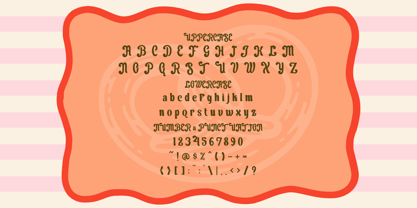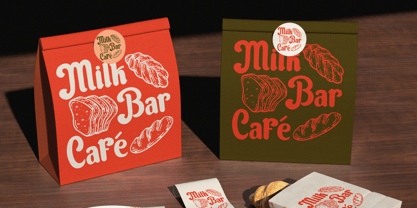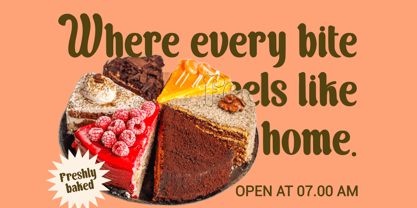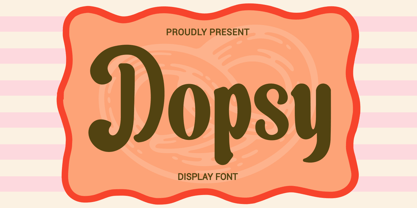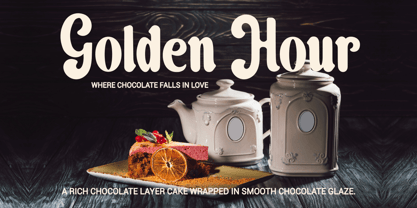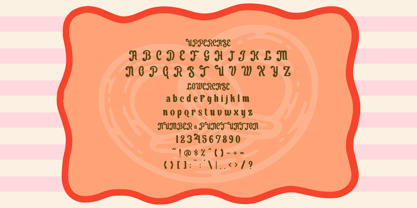
Dopsy
by Shanaf
The Dopsy Font Family was designed by Yesie Erma Yunita and published by Shanaf. Dopsy contains 2 styles and family package options. More about this family
Dopsy Retro Display Font presents bold rounded letterforms with a soft vintage character. The strokes appear thick and consistent, creating strong visual weight for headlines. Each character features smooth curves with slightly condensed proportions and compact spacing. The terminals are rounded and slightly exaggerated, giving a warm and approachable tone. Ascenders and descenders are short, which keeps the text visually tight and balanced. The structure feels stable, yet playful, with subtle irregularity that adds personality. Counters are wide enough to maintain readability at larger sizes. This font blends retro signage influence with modern display clarity. The overall style feels nostalgic, friendly, and expressive, making it effective for standout typography. This font works well for branding projects related to cafes, bakeries, and dessert businesses. It fits logo design, packaging, and product labels that need a vintage touch. The bold structure supports posters, advertising layouts, and headline compositions. It performs strongly in signage, menu boards, and storefront displays. The playful retro tone also suits greeting cards, invitations, and quote designs. Designers can use it for magazine titles, book covers, and sticker concepts. It aligns with themes such as classic cafe culture, handmade food products, and cozy branding. Dopsy Retro Display Font helps build a memorable identity with a nostalgic tone and rounded display style.
Designers: Yesie Erma Yunita
Foundry: Shanaf